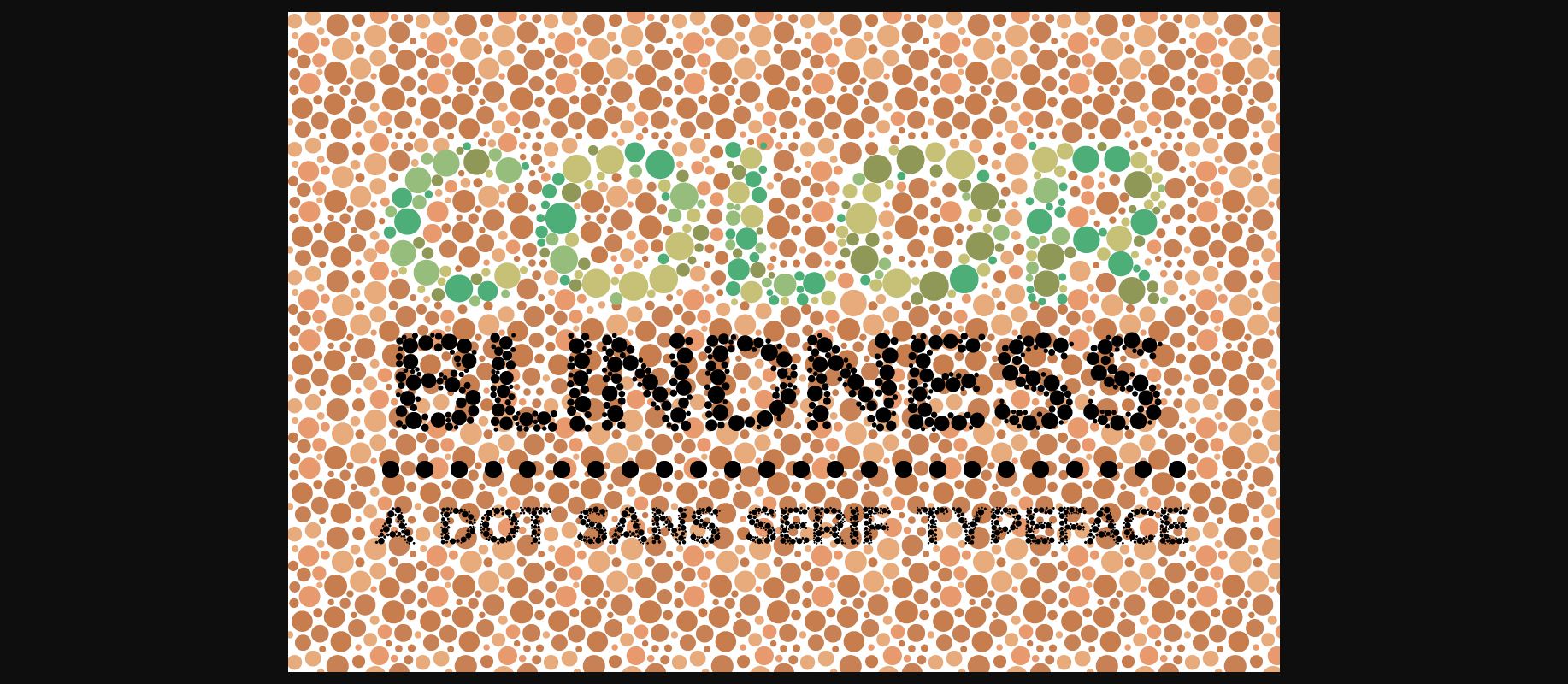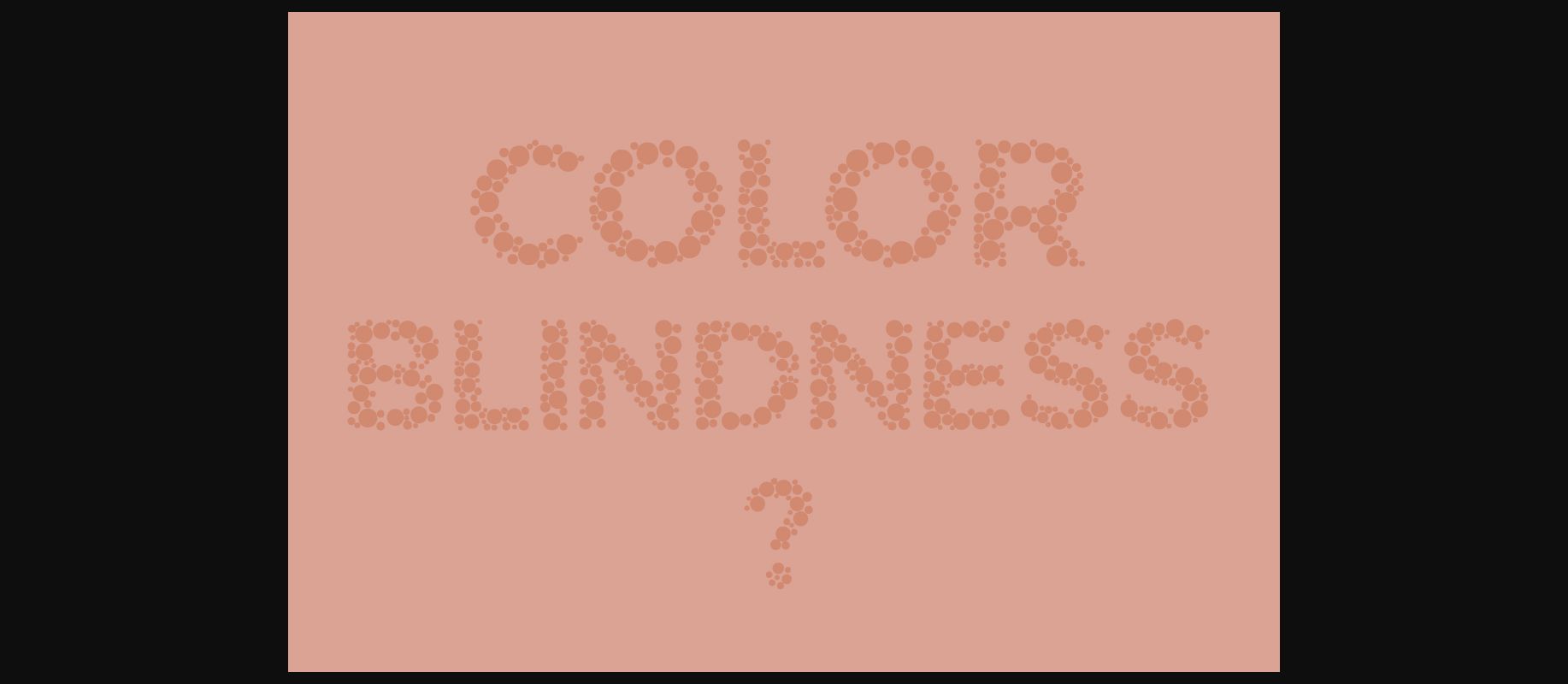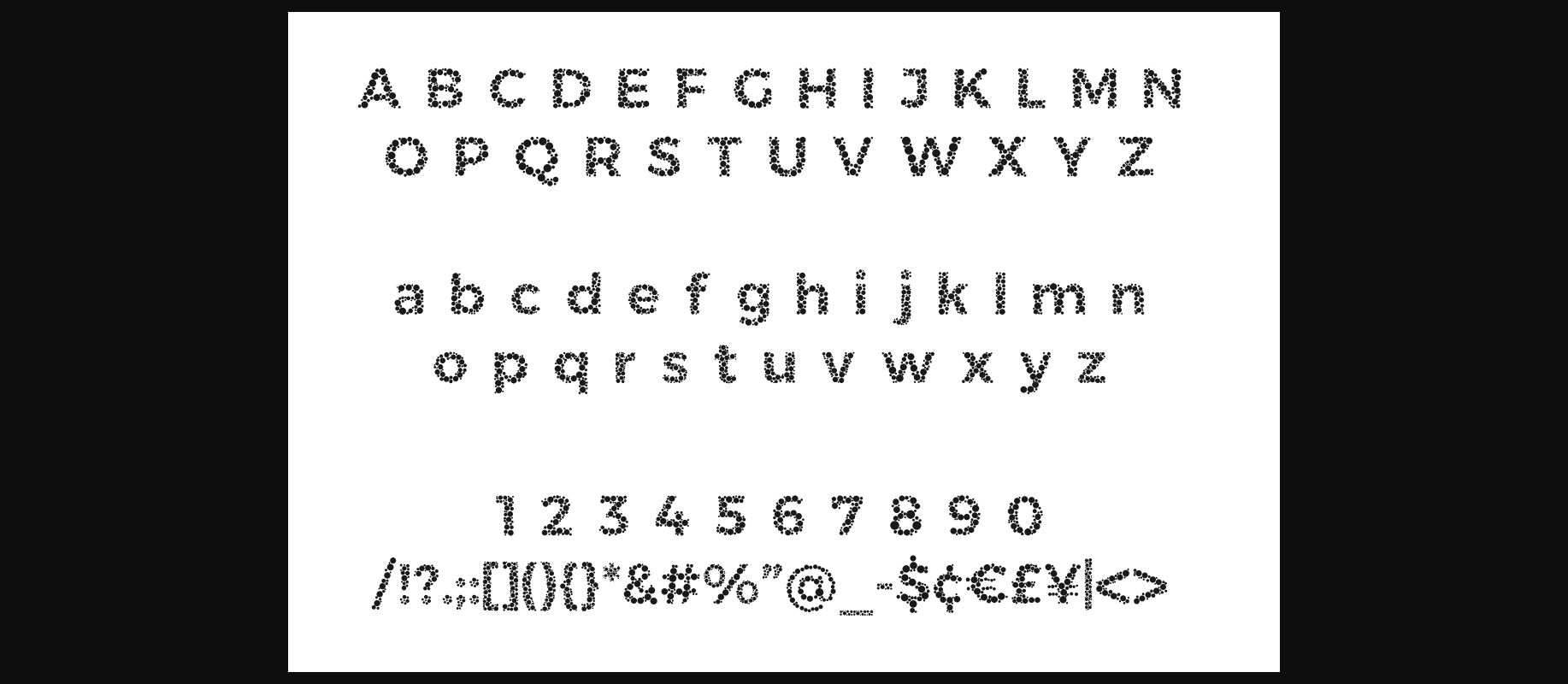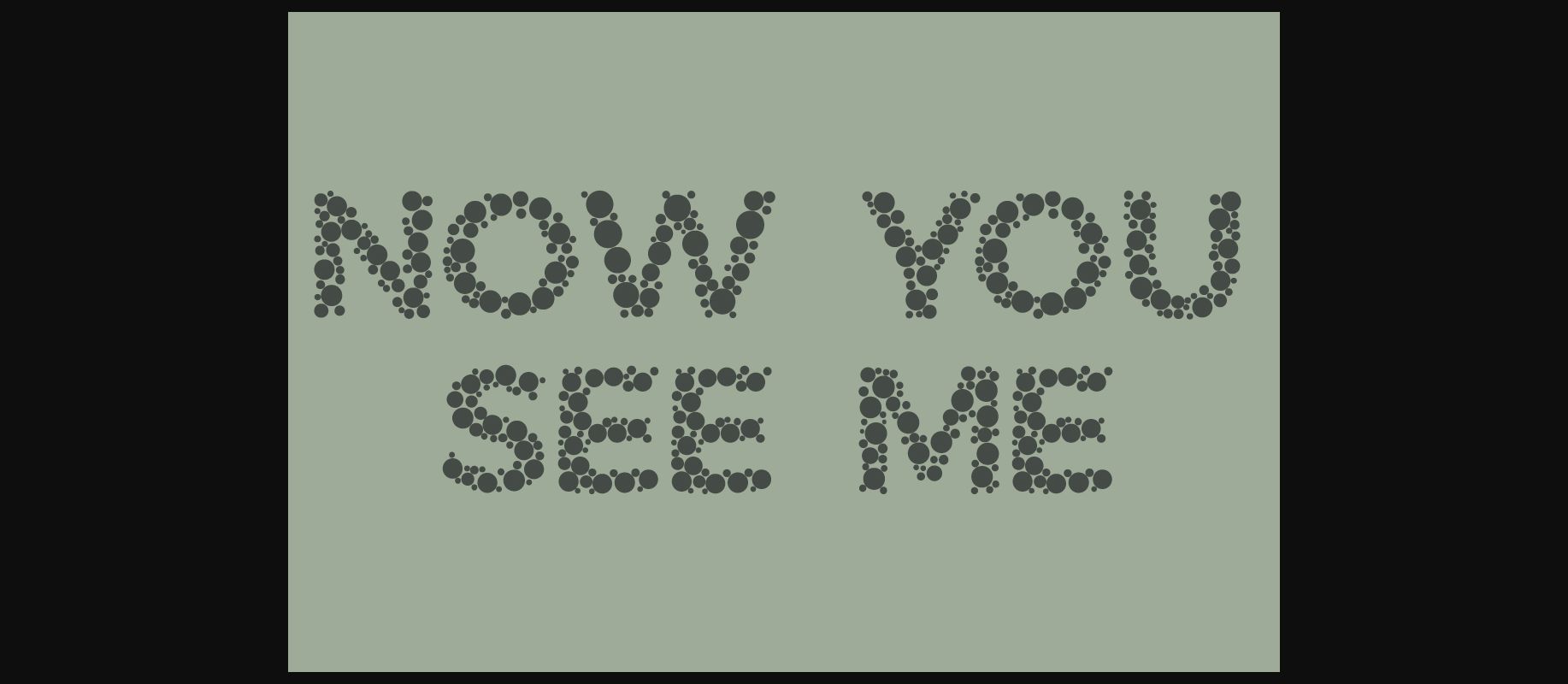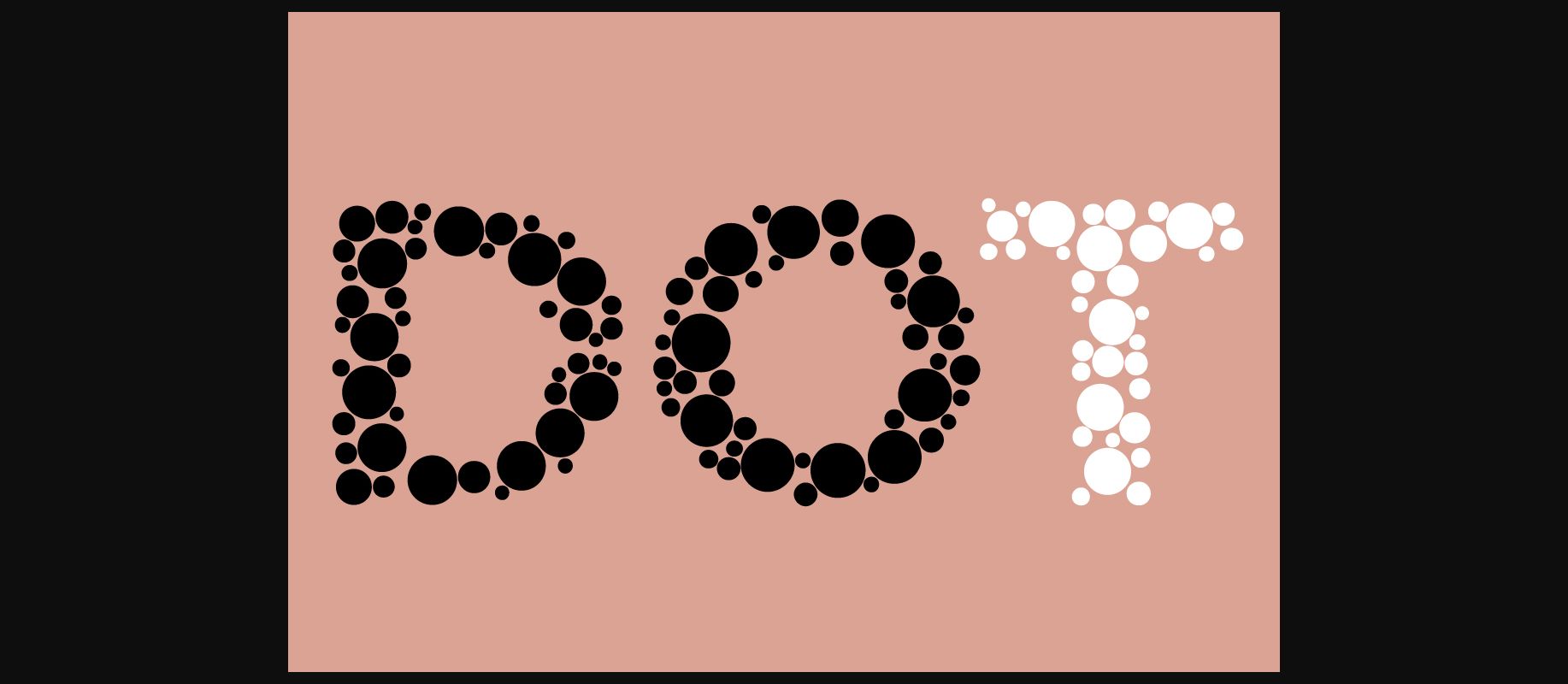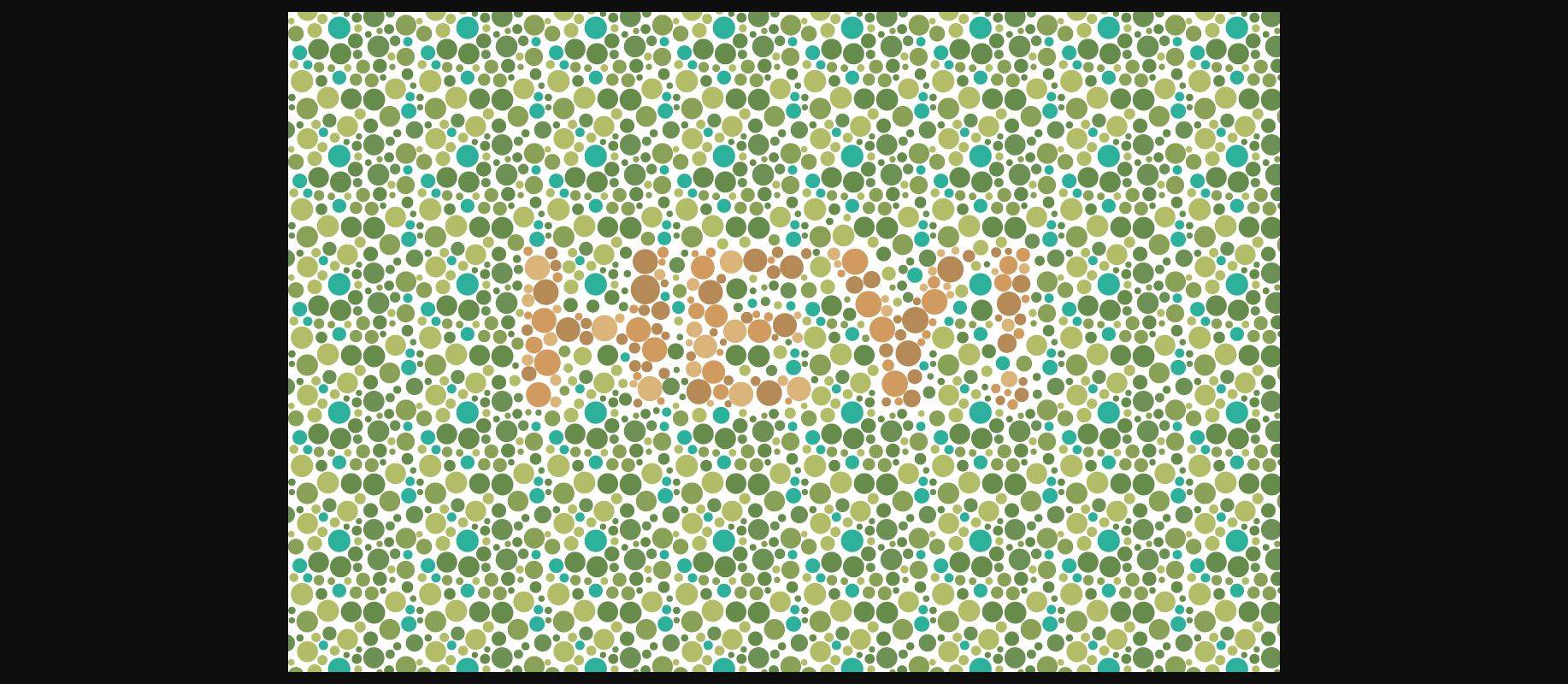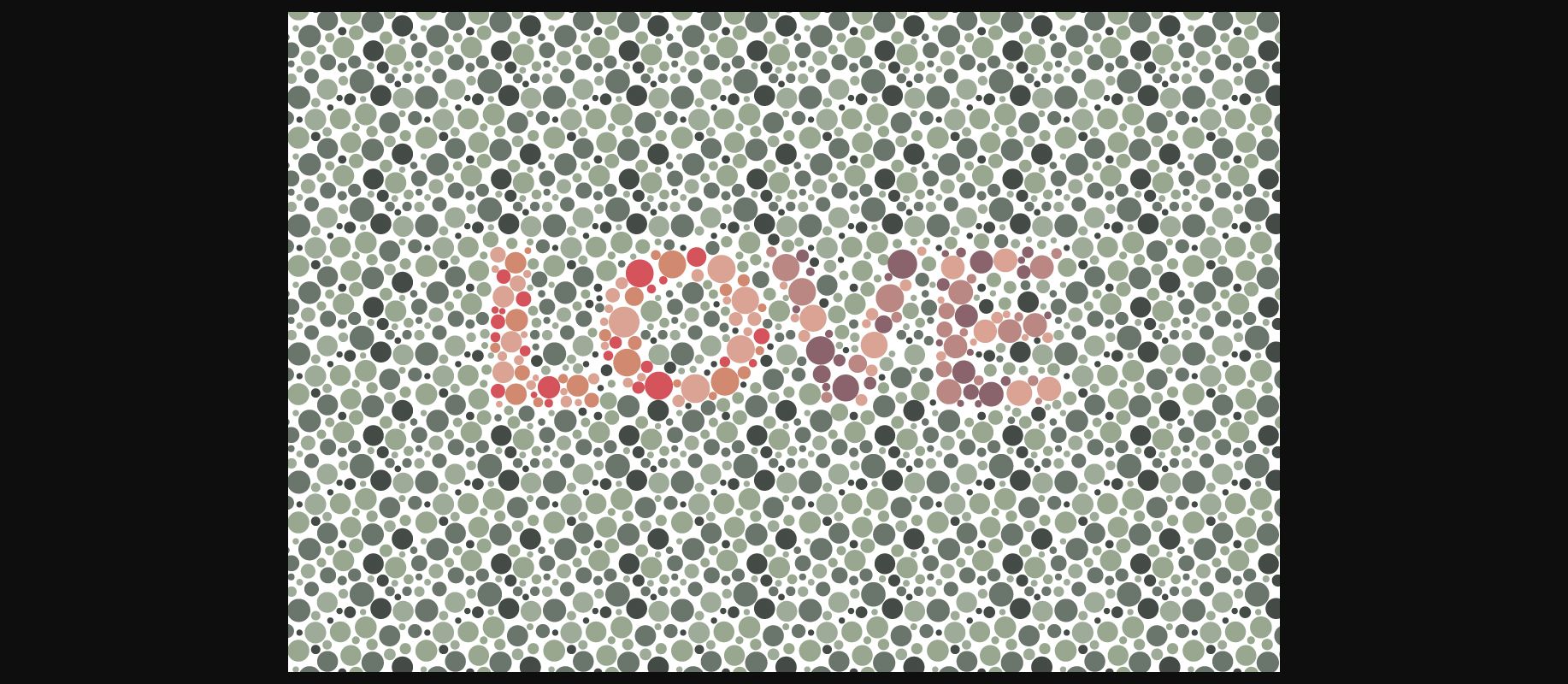
Color Blindness Font
About Color Blindness Font
Color blindness is a decorative typeface composed from dots to form unique letters inspired by color blindness test.